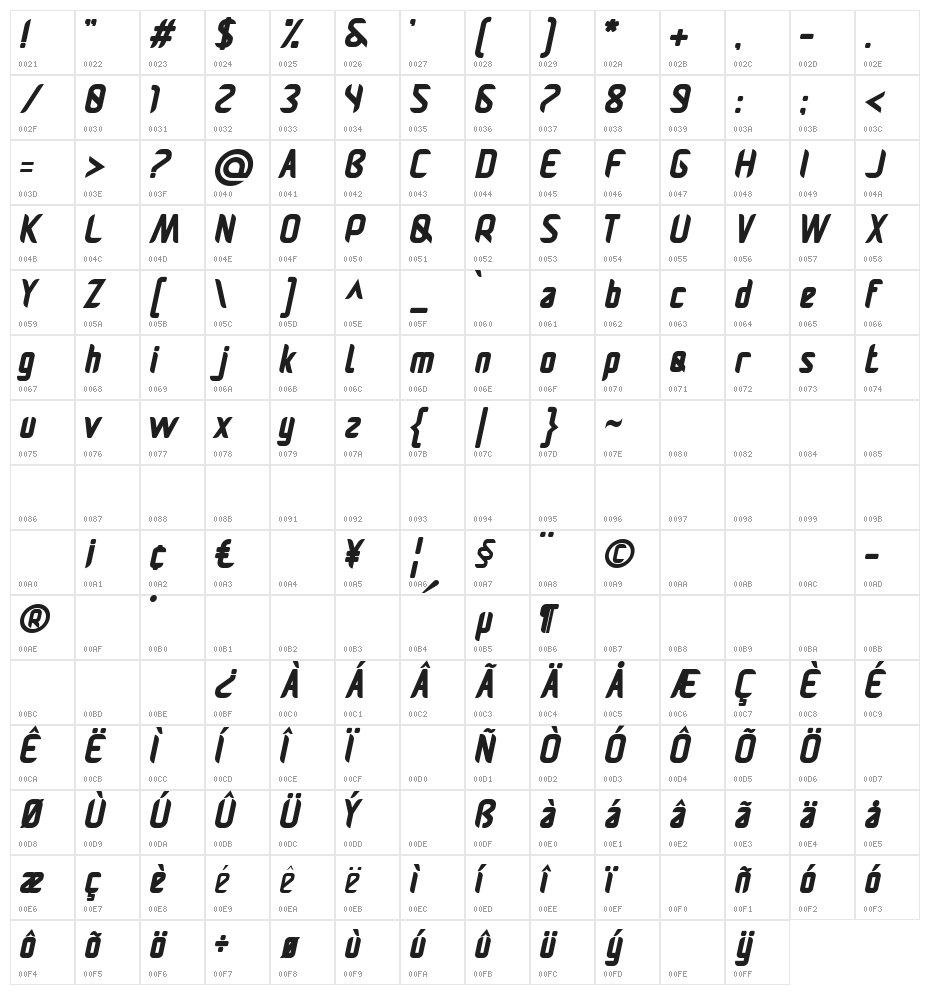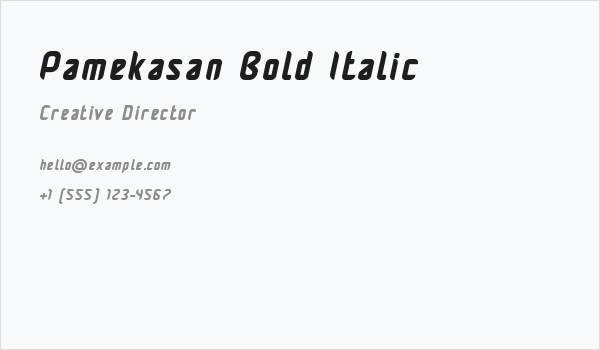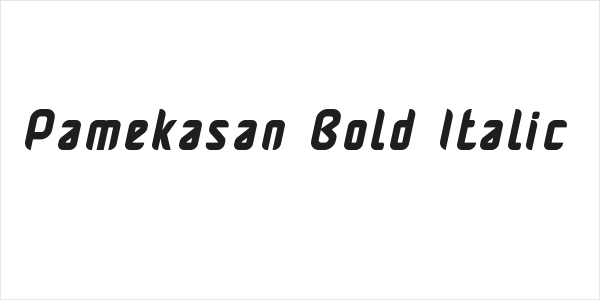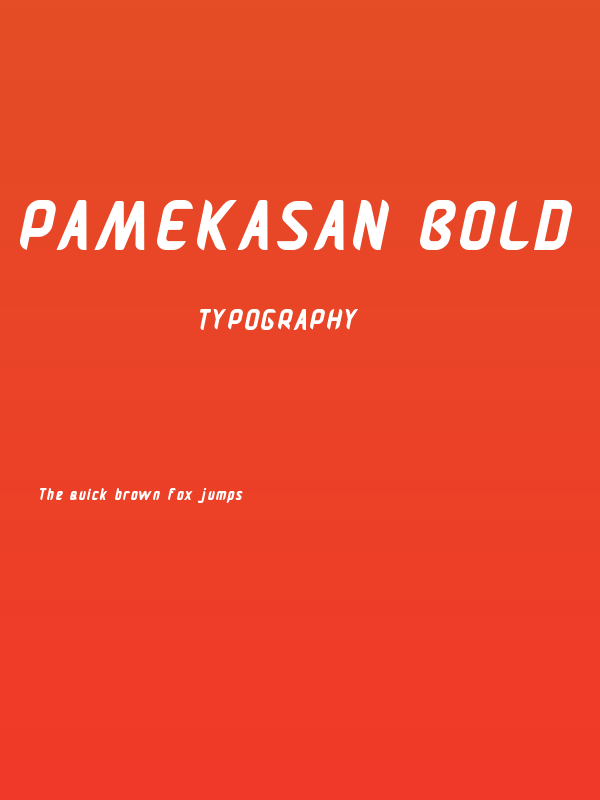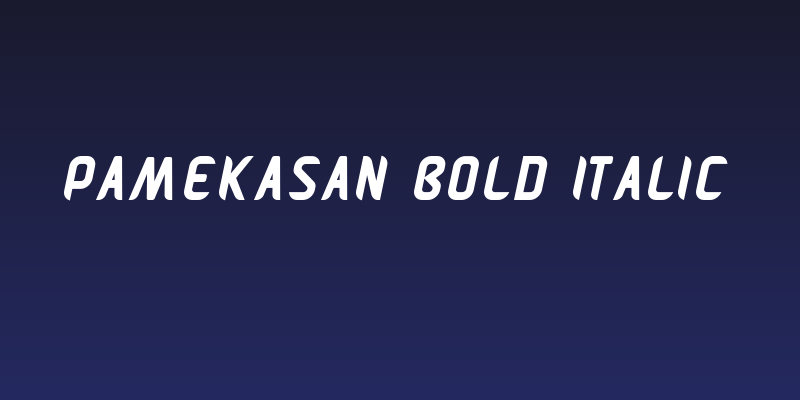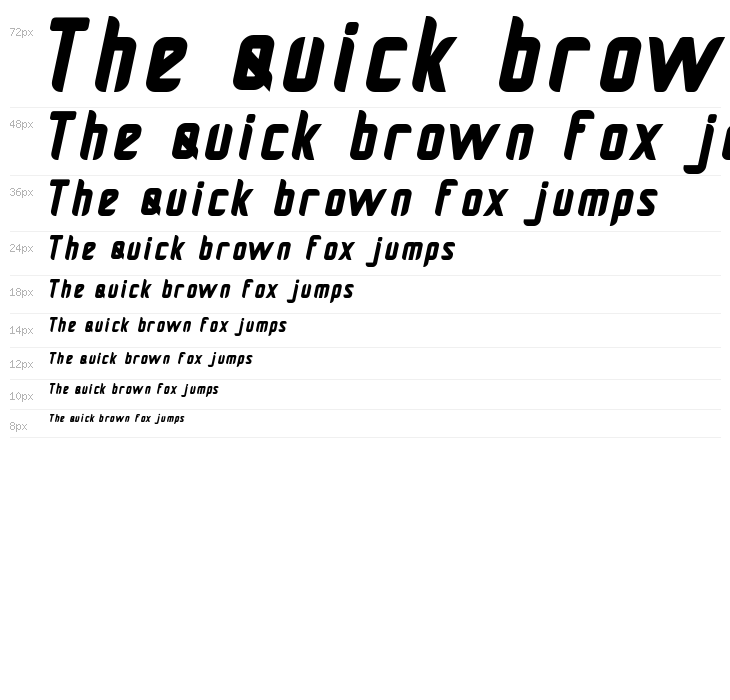
Pamekasan Bold Italic Font
Pamekasan Bold Italic Description
This font exhibits a bold and italicized style, characterized by its strong and dynamic presence. The letters are slightly slanted, adding a sense of motion and energy. The strokes are thick and consistent, providing a robust and impactful appearance. The rounded edges soften the overall look, making it approachable while maintaining a modern aesthetic. The numerals and special characters follow the same bold and italicized design, ensuring uniformity across all elements. This font is suitable for projects that require a bold statement and a contemporary feel.
| Proposed Projects | Ideal for branding, headlines, posters, and advertising materials that require a strong and modern impact. |